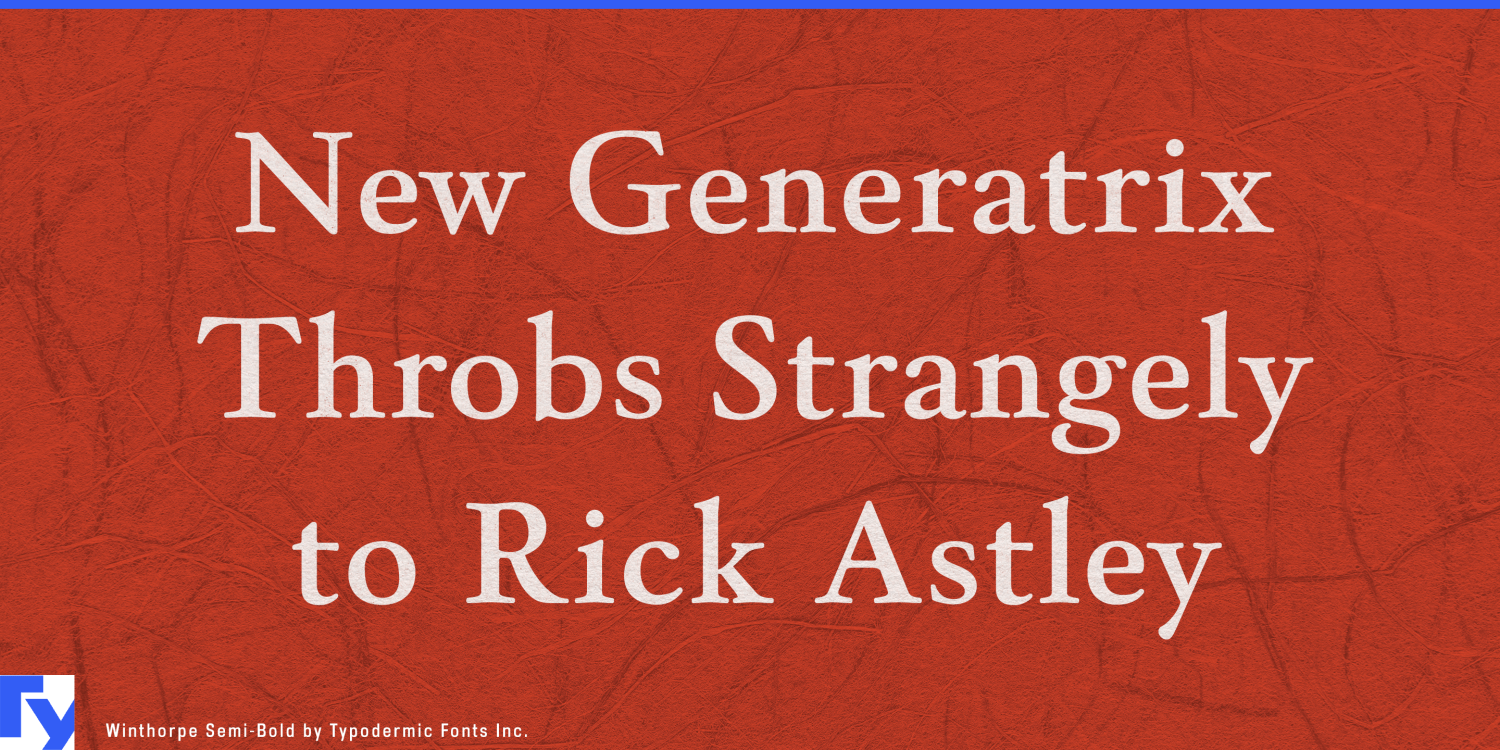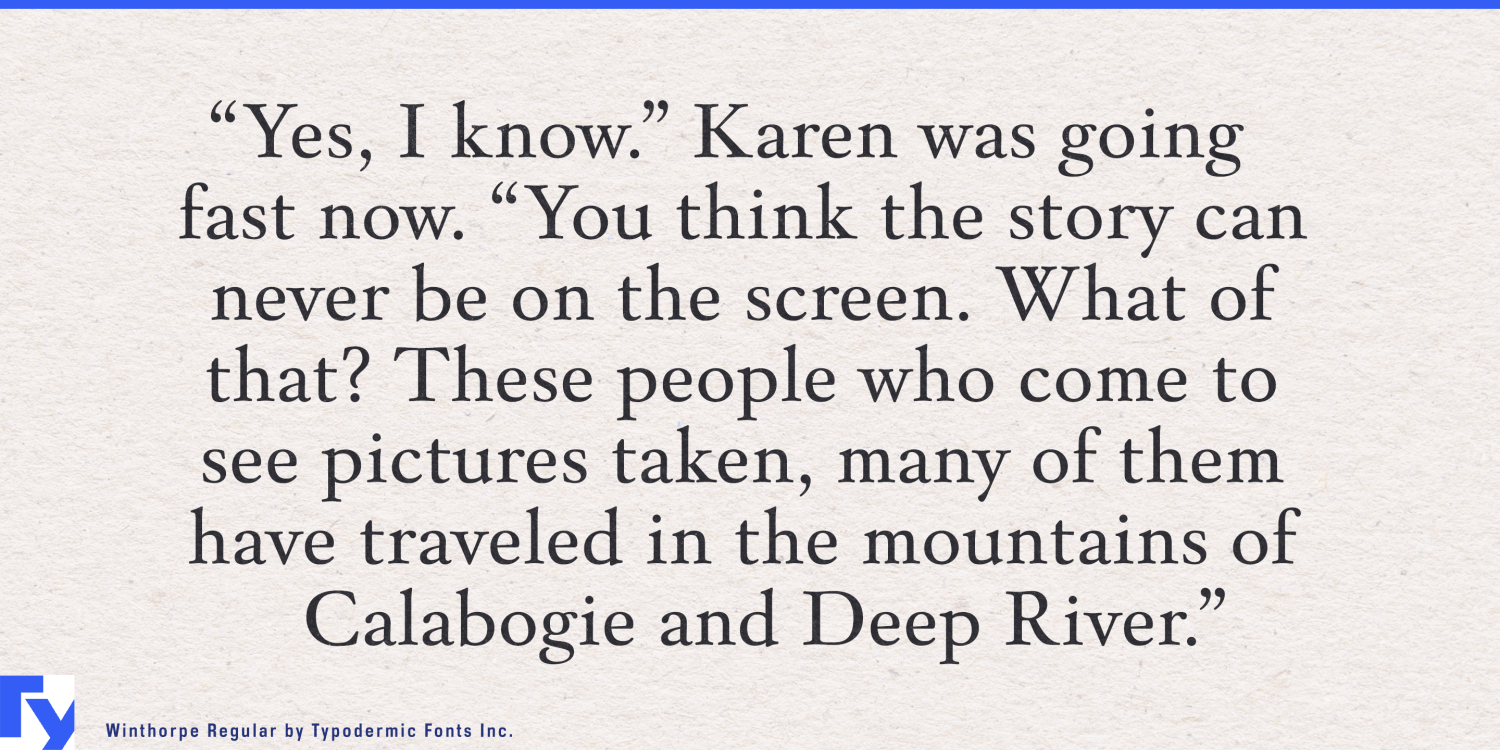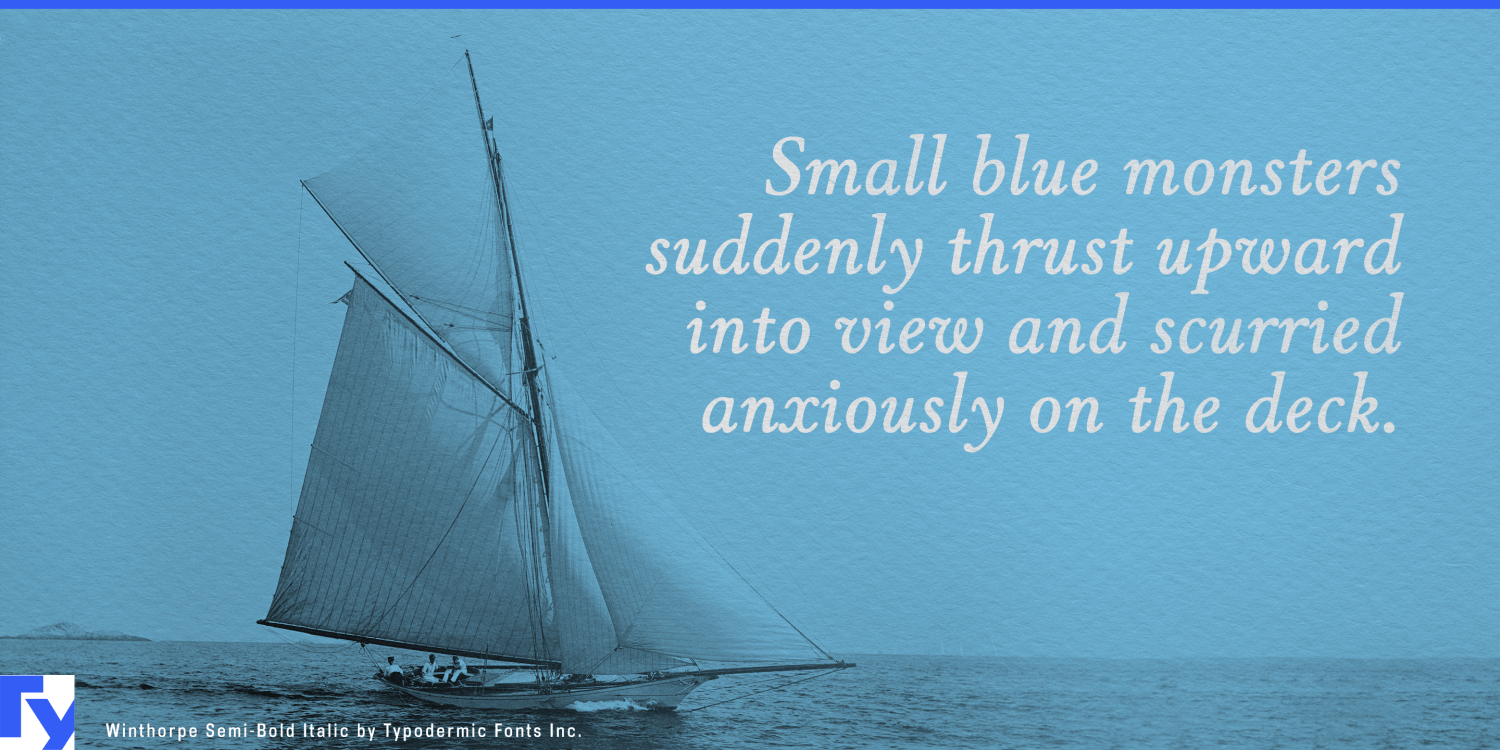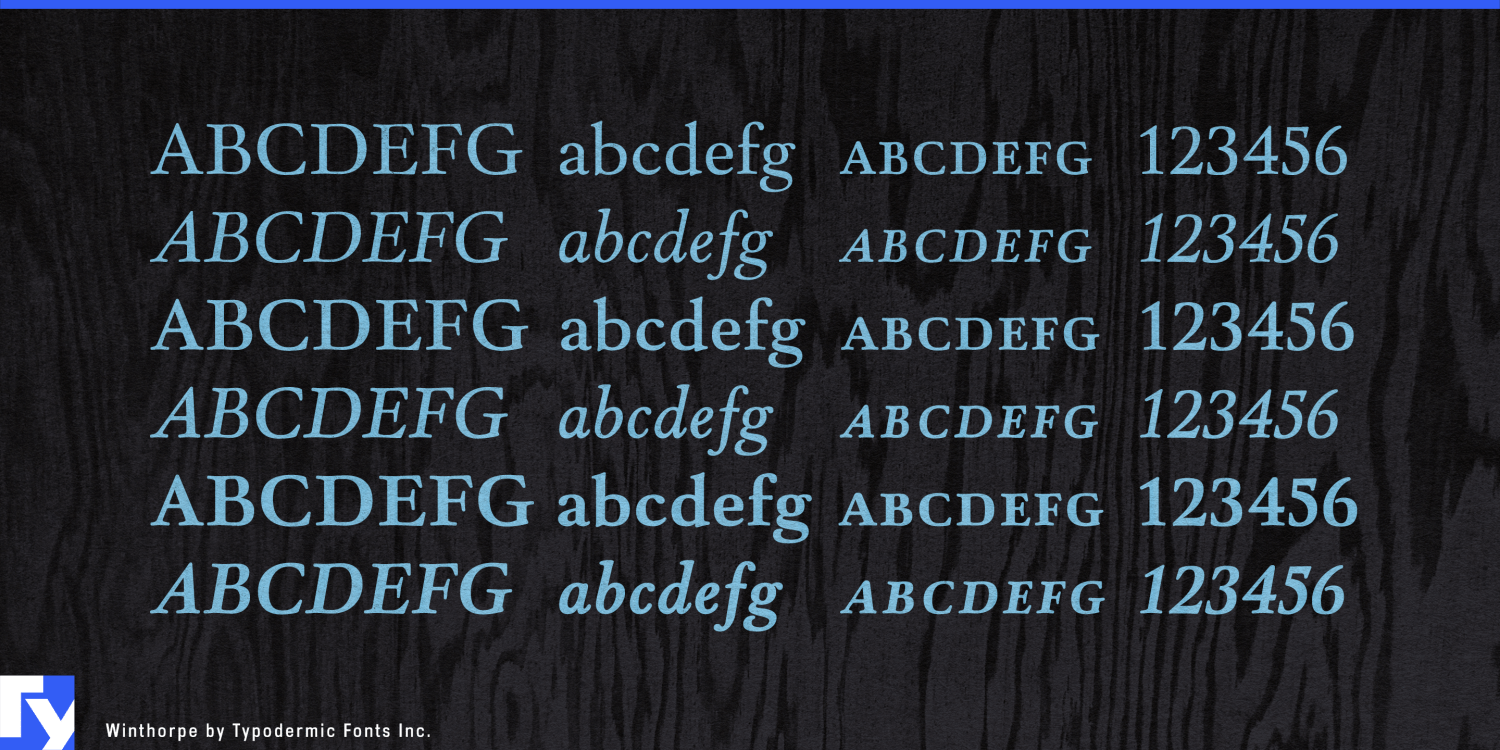
About Winthorpe
Immerse yourself in the refined world of Winthorpe—a typeface that doesn’t just nod to typographic heritage, but engages in a full-fledged conversation with it. This transitional masterpiece bridges centuries of design evolution, offering…